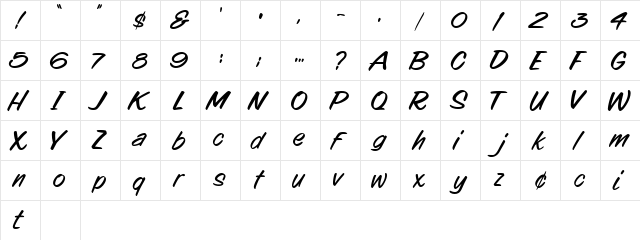
0 Hot Rod DNA Regular
Design Context for 0 Hot Rod DNA Typeface
0 Hot Rod DNA is a composed and adaptable typeface that performs quietly and consistently across a wide range of design contexts.